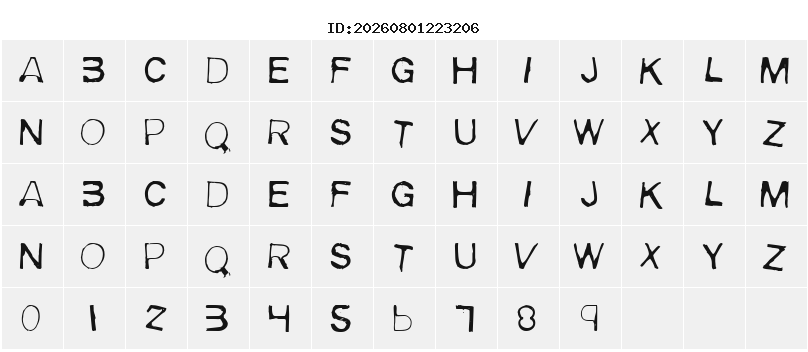
• Font Name: Meiry
• Designer: Meir Sadan
• Description: Some people call me Meiry. This is my first font ever. I took graphic design classes then, and I saw this wonderful little stencil looking all innocent, lying in some drawer with nothing really special to do. So I took it home. At first, I started writing little notes in people's study notebooks in school using my little nice stencil as a way of making nice letters that came out looking so grungey-cool. Then, I saw how everybody makes fonts and I wanted to make a font myself, too. So I thought and thought of an idea for a typeface - and suddenly, it stroke me like a lightning! I sat down and scribbled the entire basic font character set using my little limited stencil. I cleaned them all up a bit in Photoshop and brung into Fontographer.
About Meiry.ttf
Meiry.ttf is a modern, elegant sans-serif font designed for ultimate readability and visual harmony. Perfect for branding, headlines, web design, and print materials.